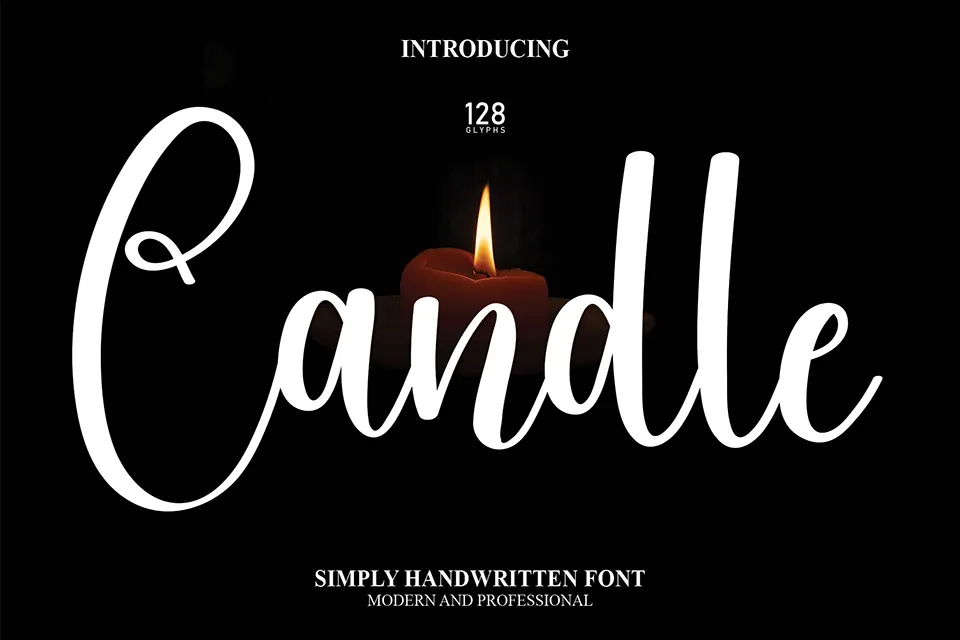
Candle Script Font
Candle Script Font is a sweet and friendly handwritten display font that brings charm and elegance to any design project. Fresh and neat in appearance, this versatile typeface is ideal for writing wedding invitations, greeting cards, or any other design that might need a playful and romantic touch. The font features beautiful flowing letterforms with a handcrafted aesthetic that makes it perfect for wall displays, social media post logos, advertisements, product packaging, product designs, labels, photography watermarks, invitations, and stationery projects. Candle Script Font combines modern style with classic handwritten elegance, offering designers a sophisticated yet approachable typeface for creating memorable typography. The font’s versatile character makes it suitable for both digital and print applications, from branding projects to personal correspondence, ensuring your creative projects stand out with distinctive style and charm.